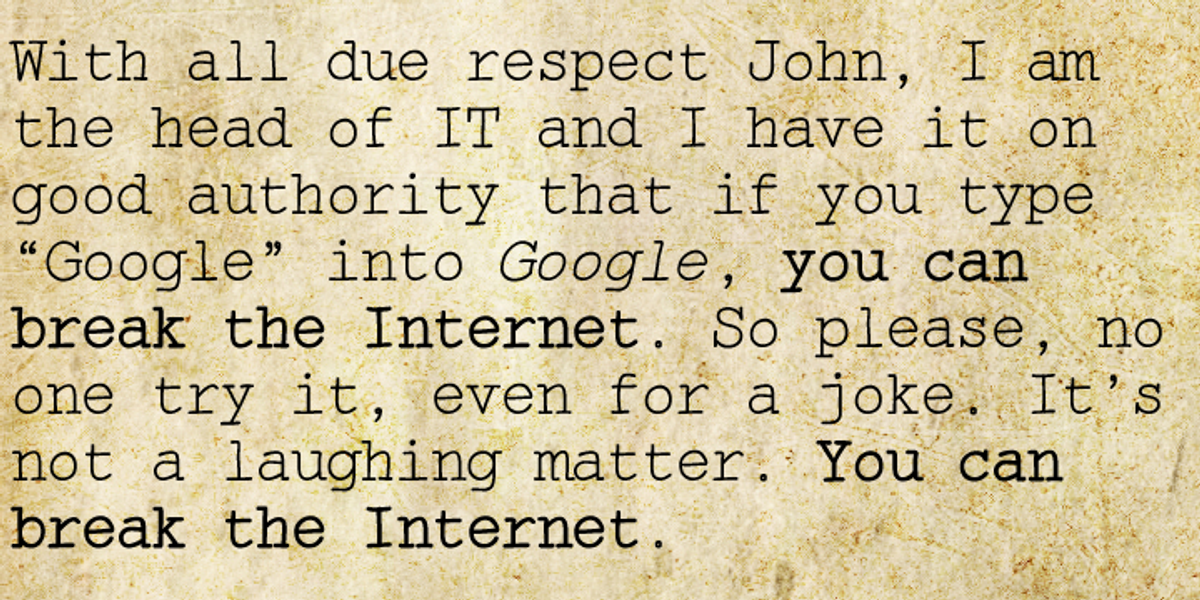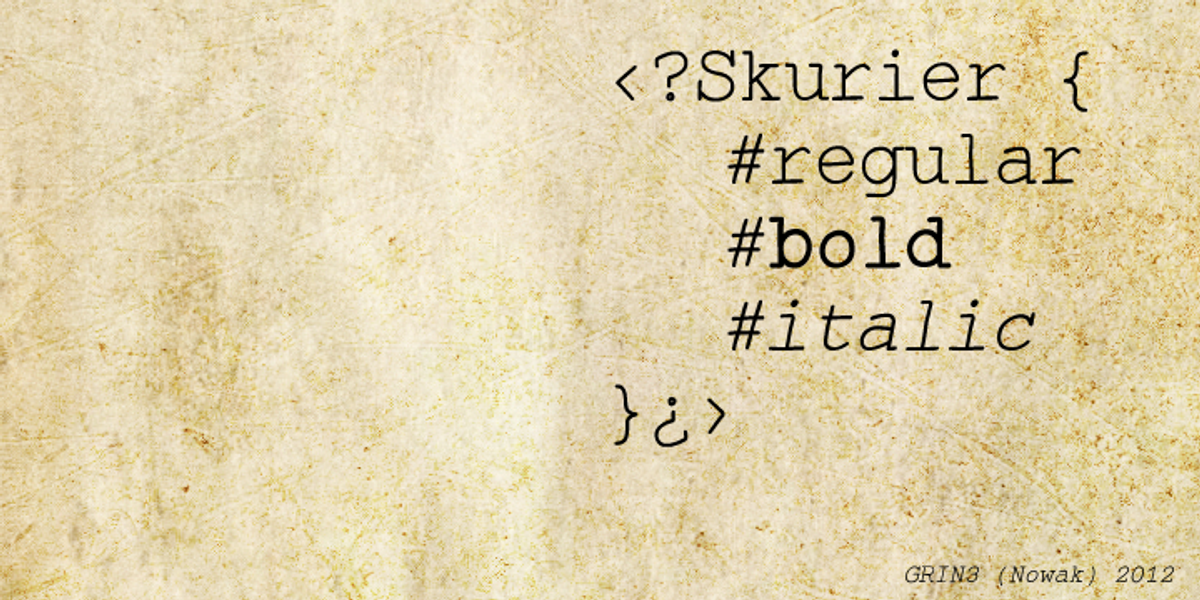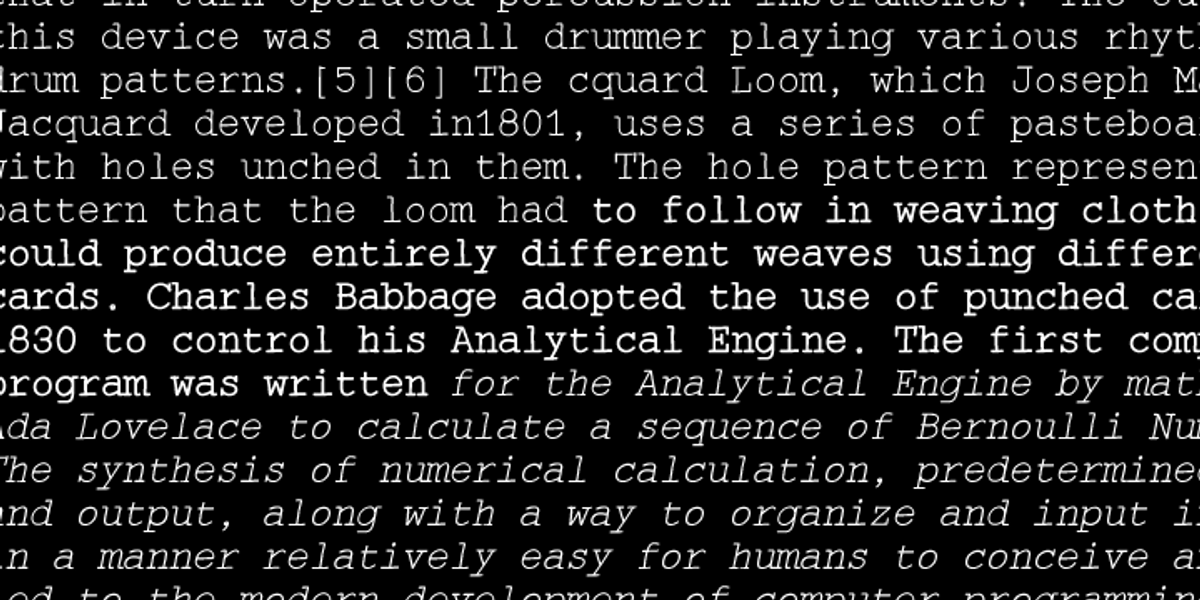
Skurier
Skurier is a unique typeface that combines the practicality of monospaced fonts like Courier with a hand-drawn aesthetic. This makes it well-suited for programming code display, as well as longer passages of text where a casual, vintage feel is desired. Its extensive language support ensures readability across a wide range of languages.